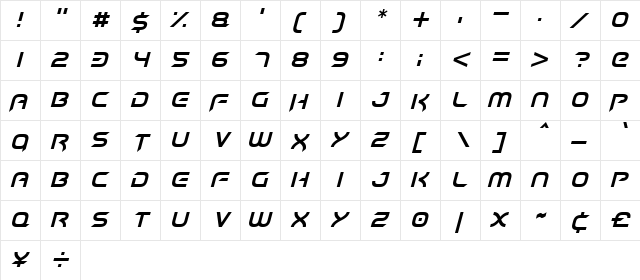
Hyper heliX Italic
| Designer | Darrell Flood |
Design Context for Hyper heliX Typeface
Hyper heliX takes a measured approach to typography — its balanced proportions and neutral character make it a reliable workhorse for both digital and print work. The dynamic lean of this cut emphasises speed and emphasis in any layout.